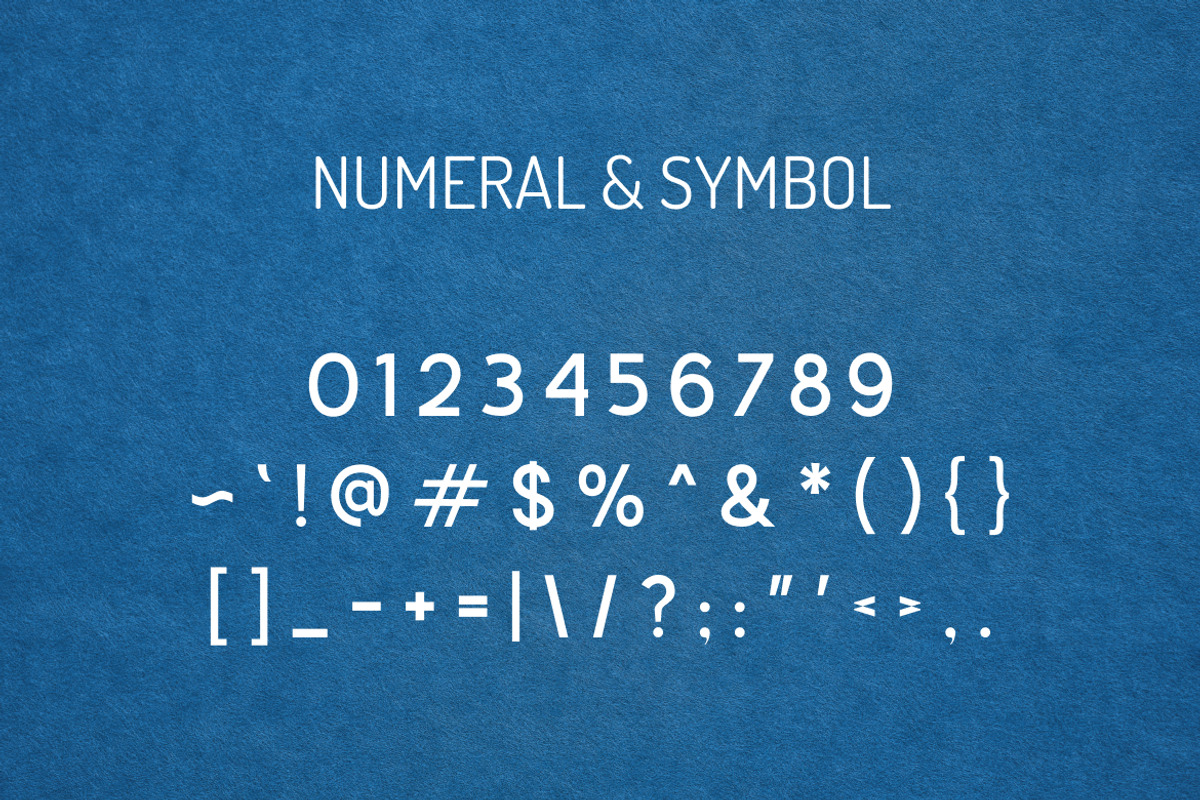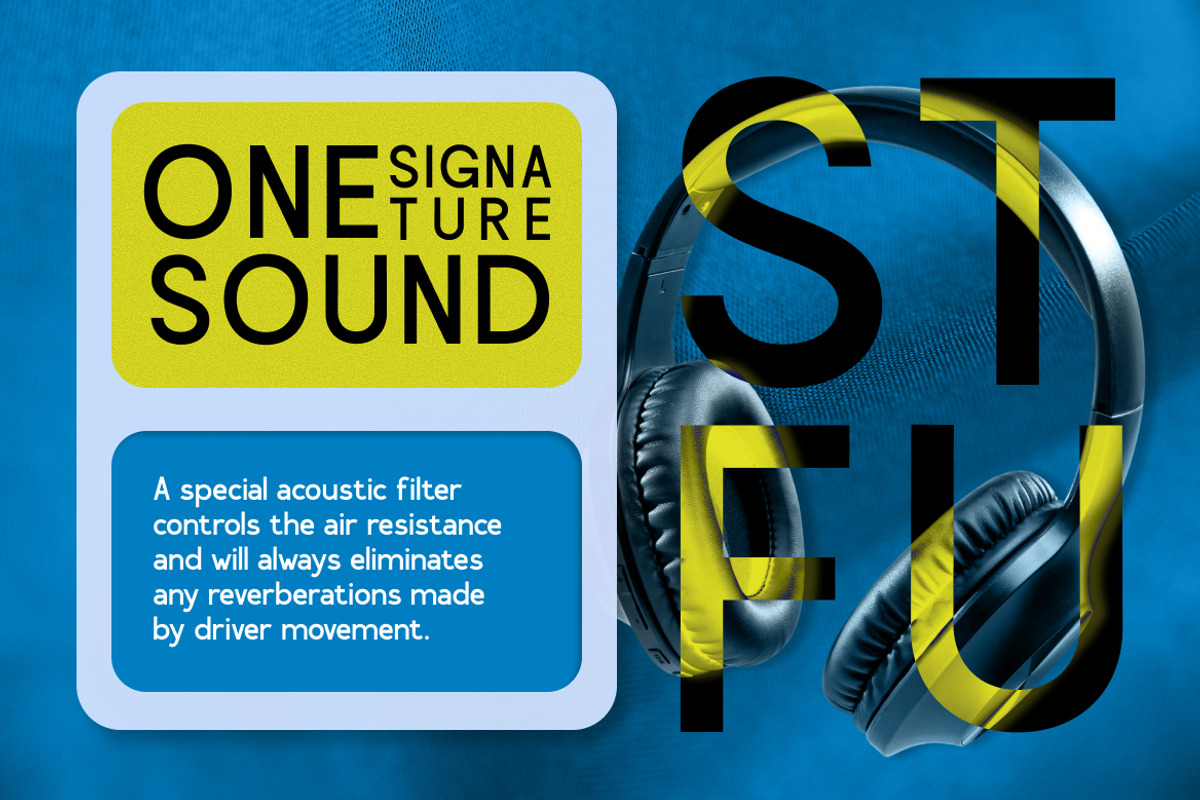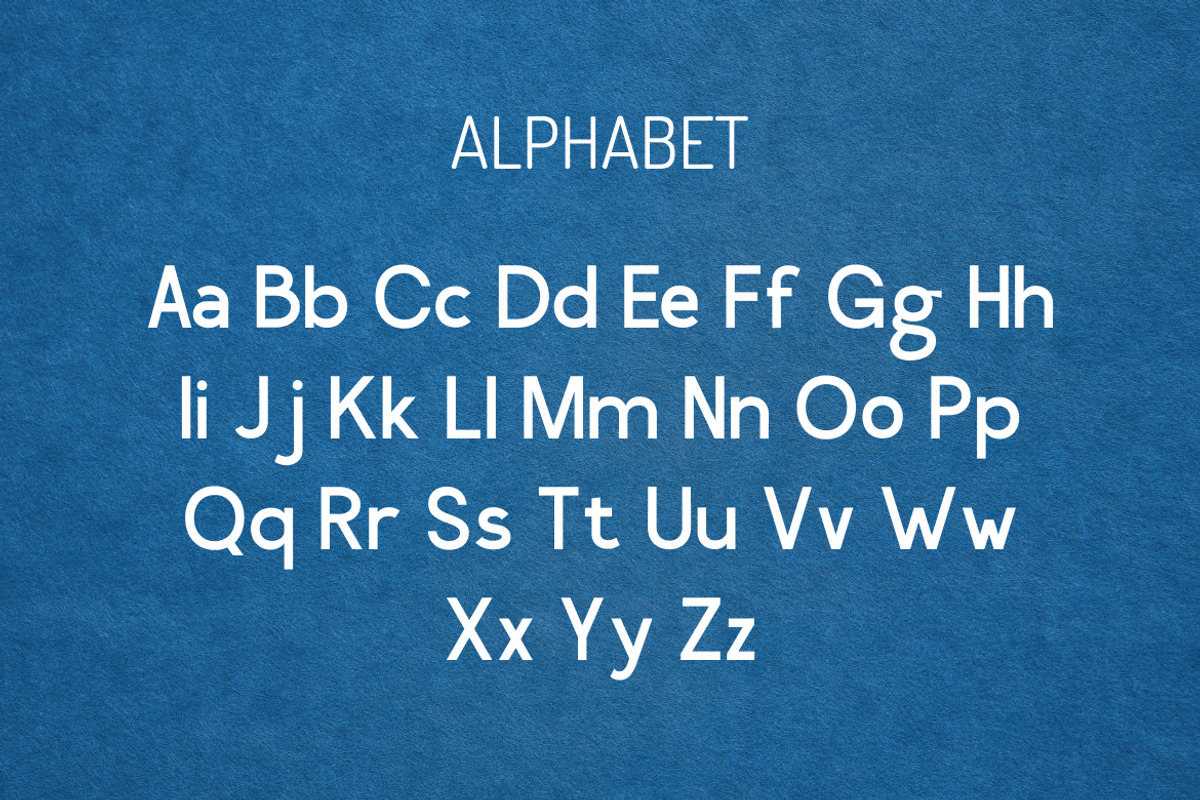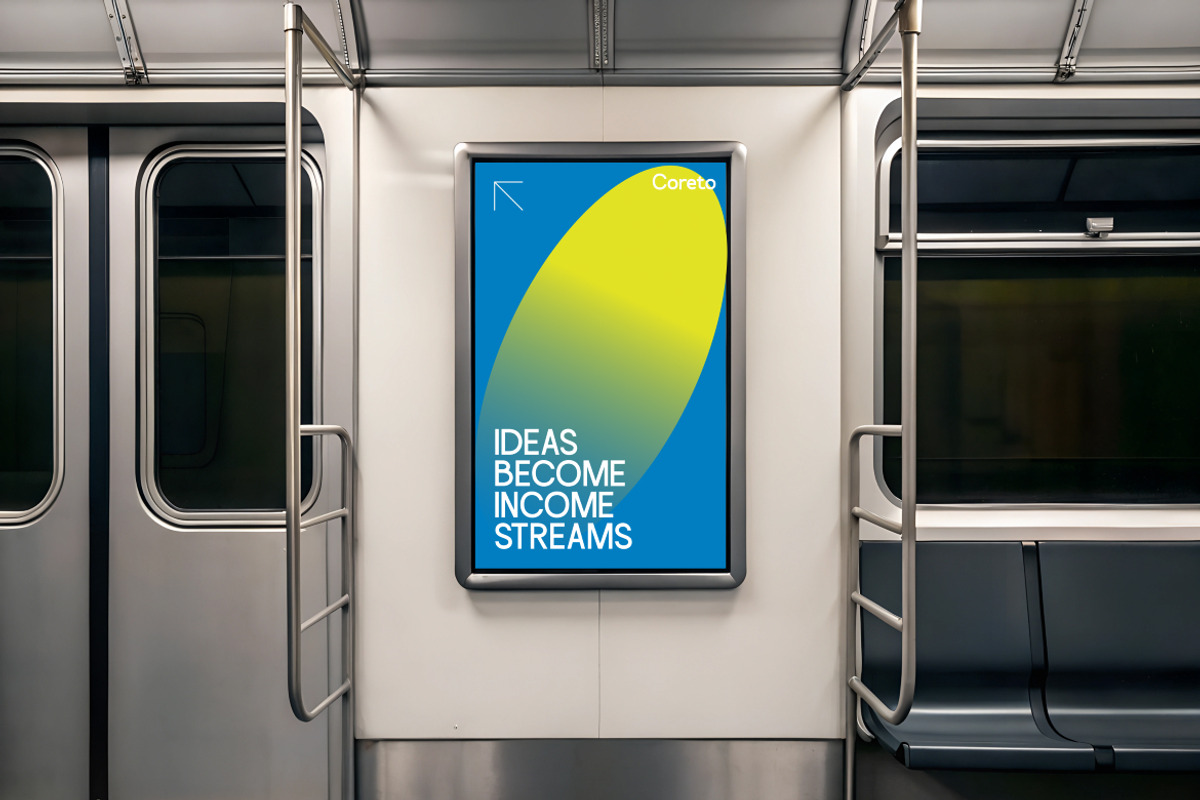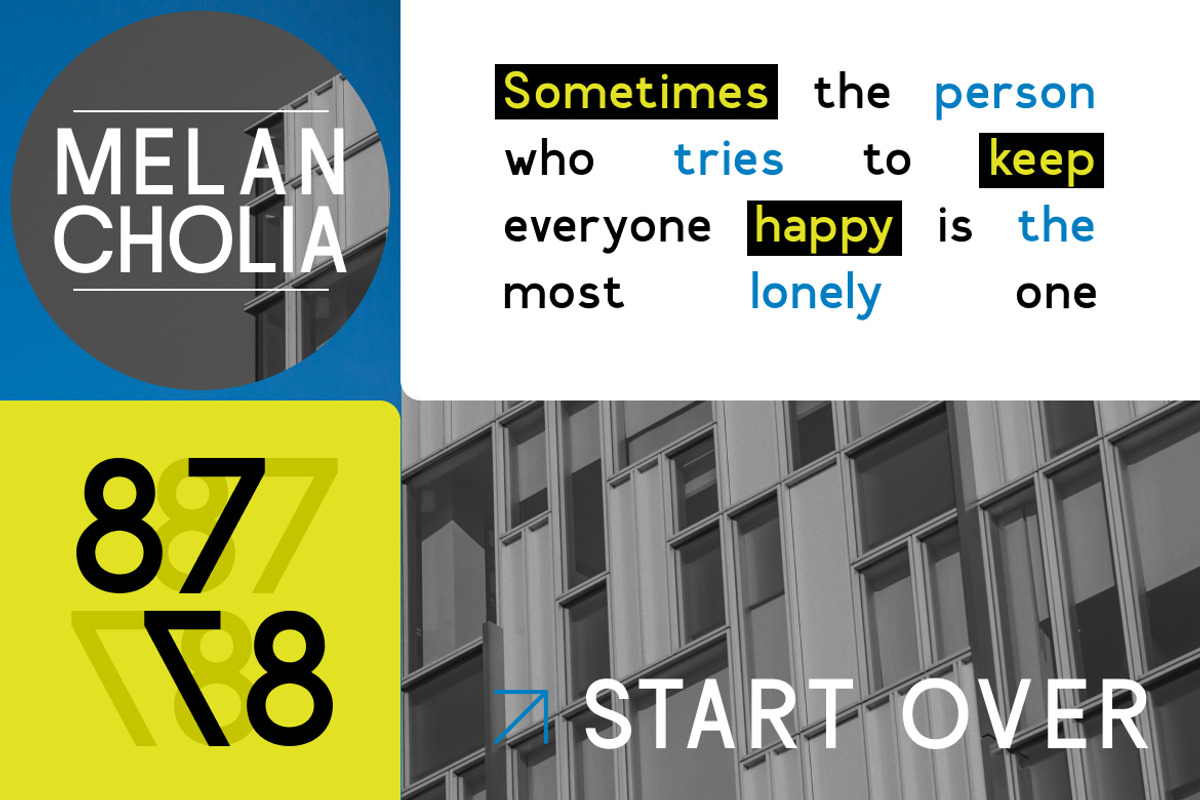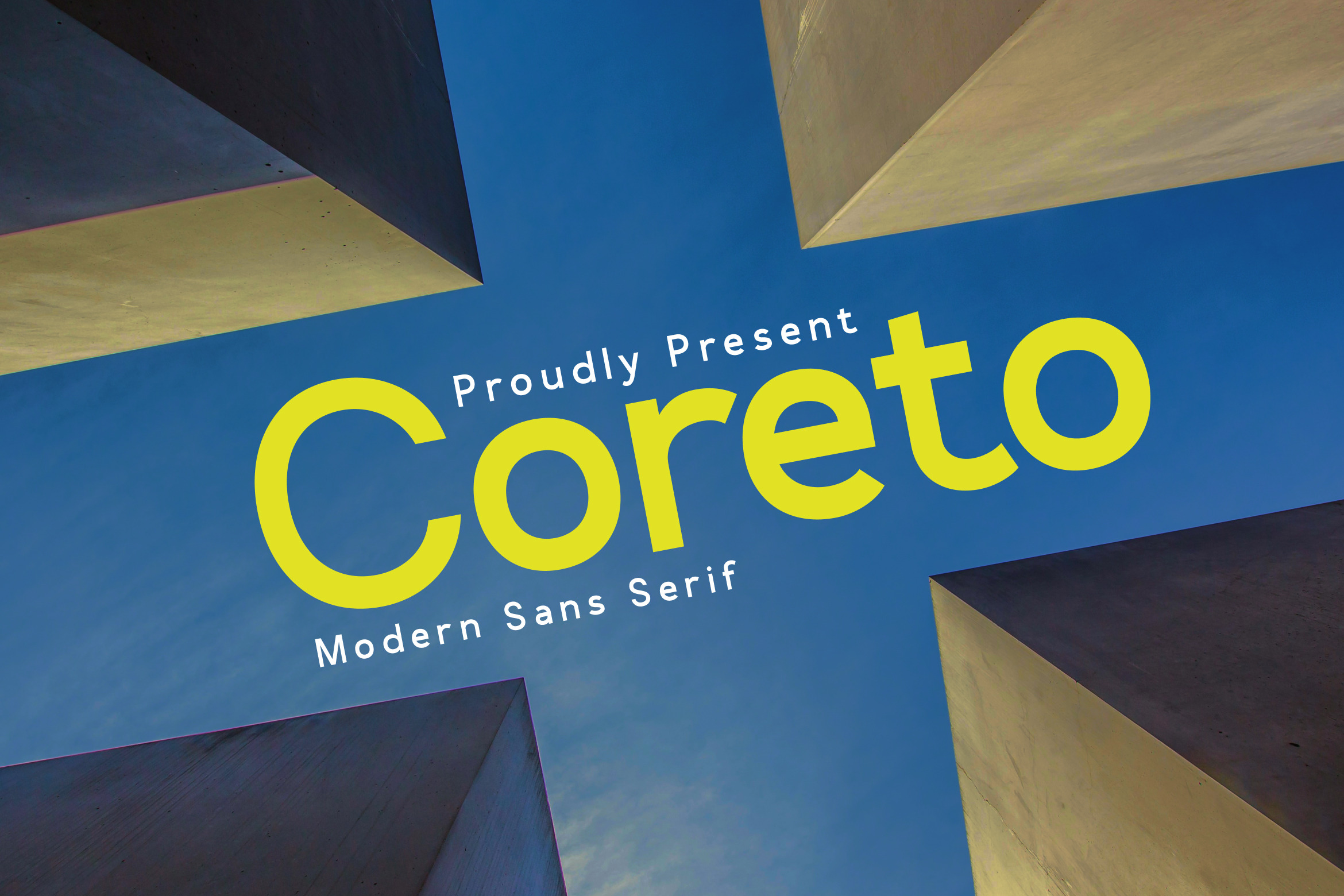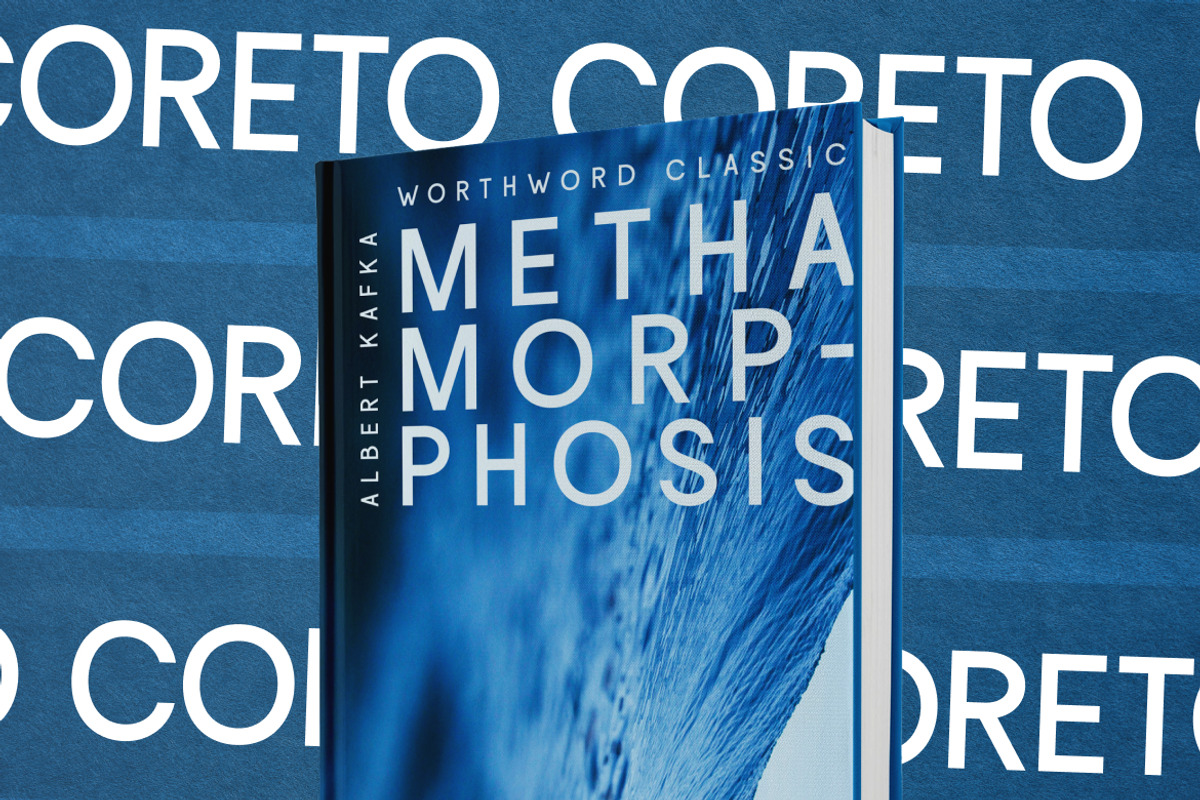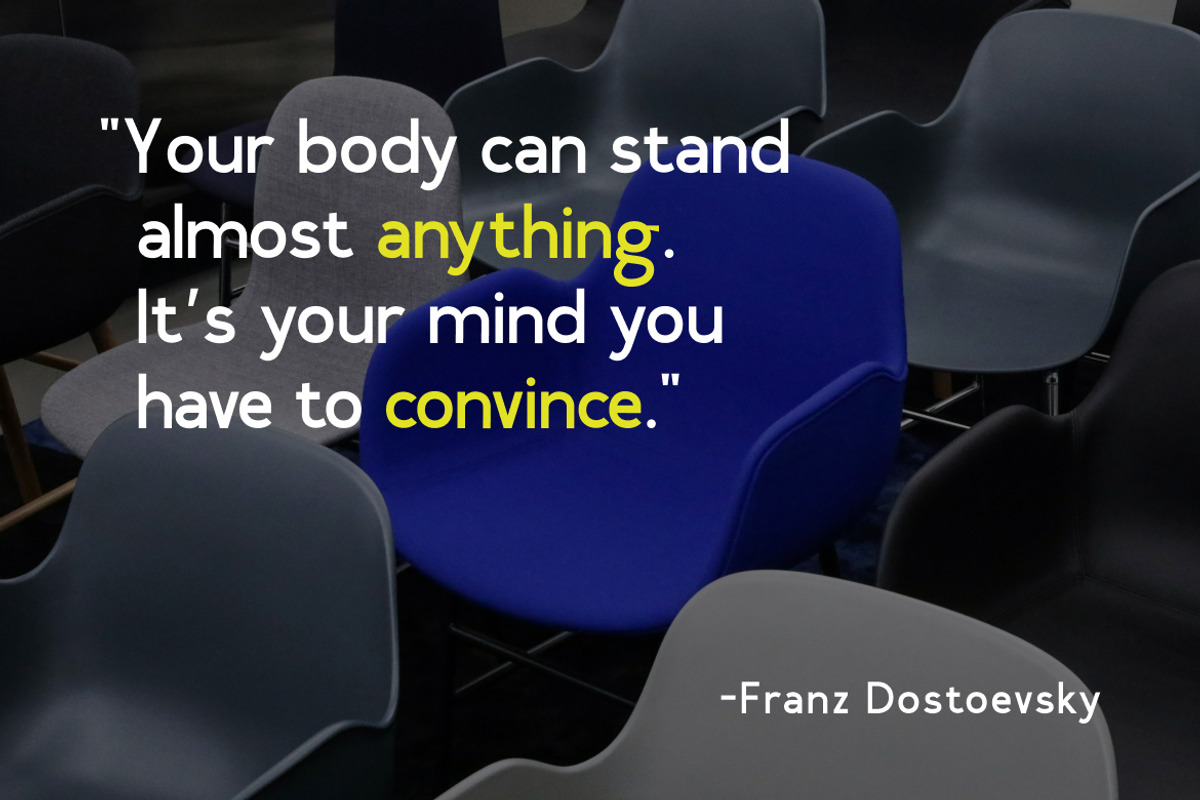
Coreto Modern Sans Serif Font
Coreto is a modern sans-serif typeface with a clean, bold, and geometric character ideal for digital and print applications. Featuring a full set of uppercase and lowercase letters, numerals, and punctuation, it is perfect for logos, headlines, branding, and user interface design. Its legible, balanced structure makes it versatile for both minimalist layouts and expressive design projects.
Coreto suits a wide range of design needs, from tech branding and startup identity to app interfaces and marketing visuals. Its bold yet simple character is perfect for projects requiring clarity and modernism, whether in logos, posters, editorial layouts, or website headers. Coreto brings functional elegance to any design with a contemporary edge.
- Neutral grotesque design with softened geometric structure
- Subtle humanist details in character shapes for warmth
- Rounded terminals and smooth curves for legibility
- Consistent vertical stress with clean line weight
- Ideal spacing for both display and body text readability
- Branding systems needing a modern yet approachable feel
- UI/UX design for tech interfaces and clean mobile apps
- Editorial layouts for magazines, books, and journals
- Sleek product packaging and minimal label designs
- Digital templates for social media, ads, and promos
Bring bold clarity to every project, Coreto delivers modern form with effortless style